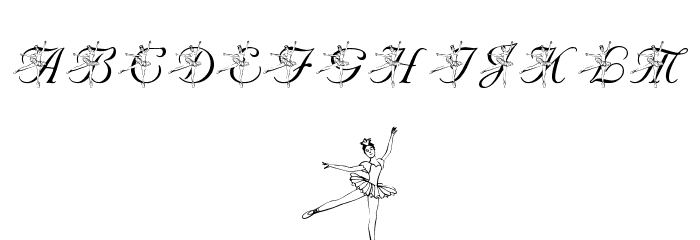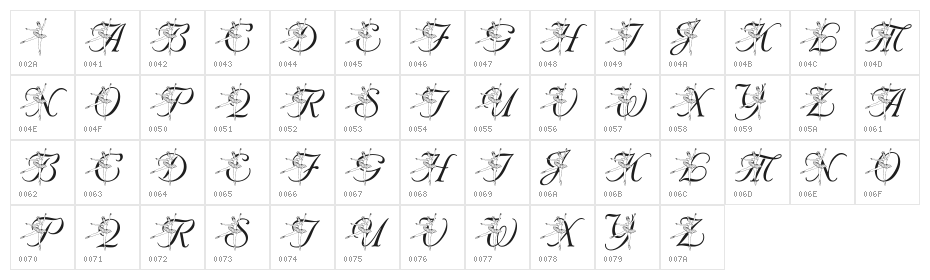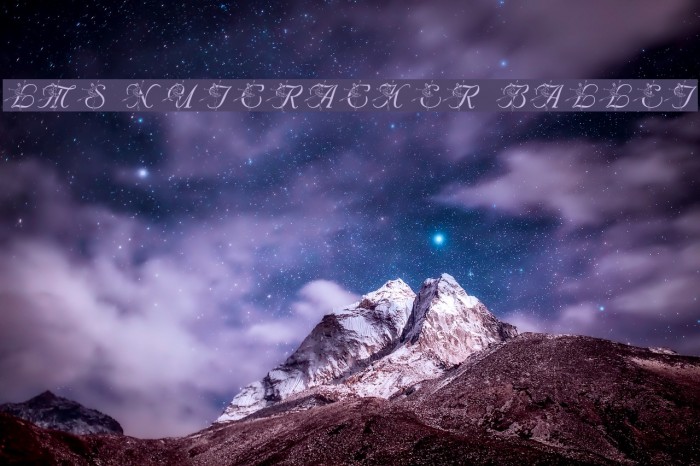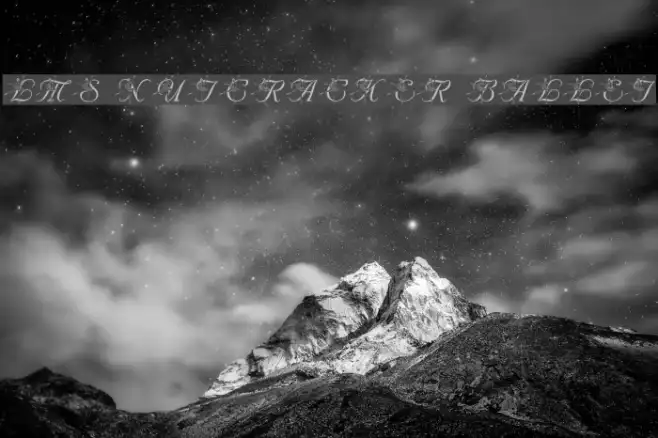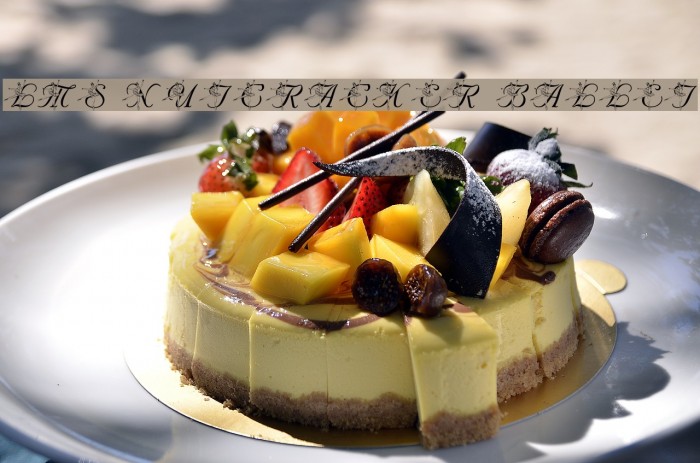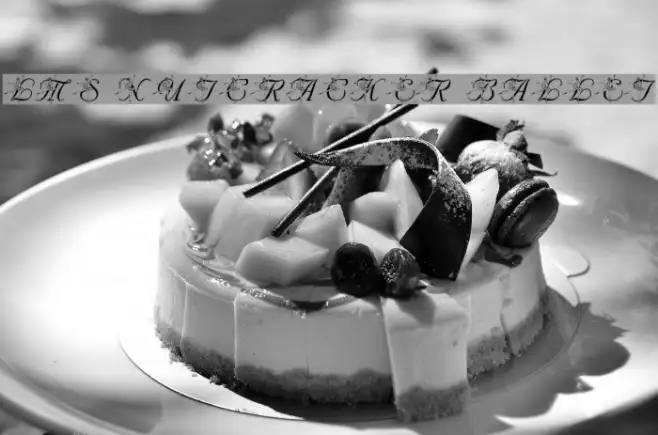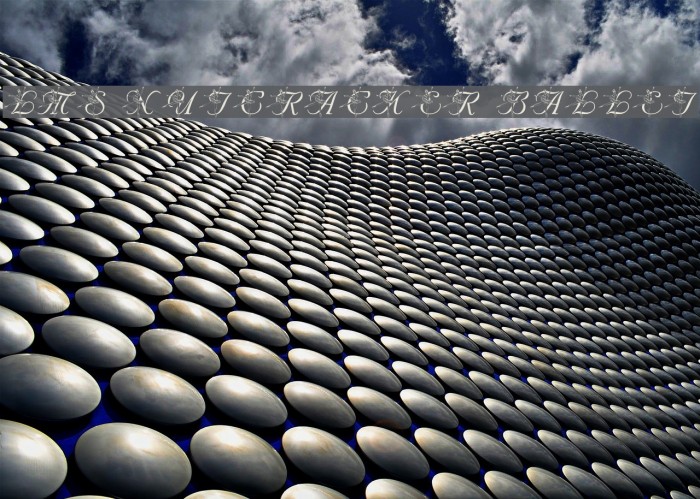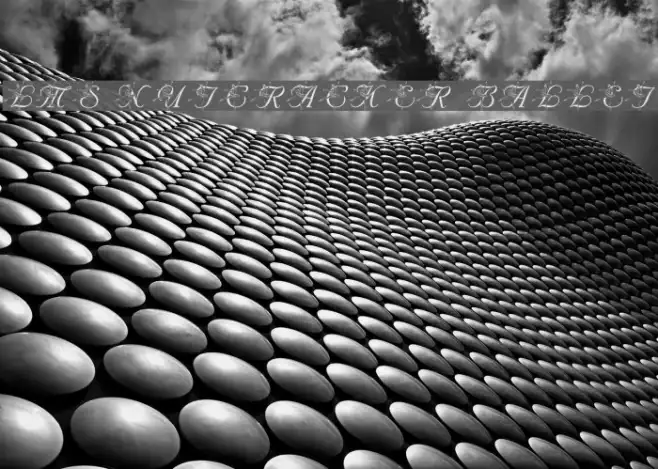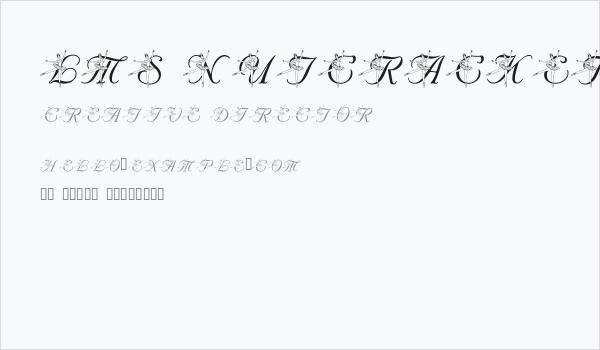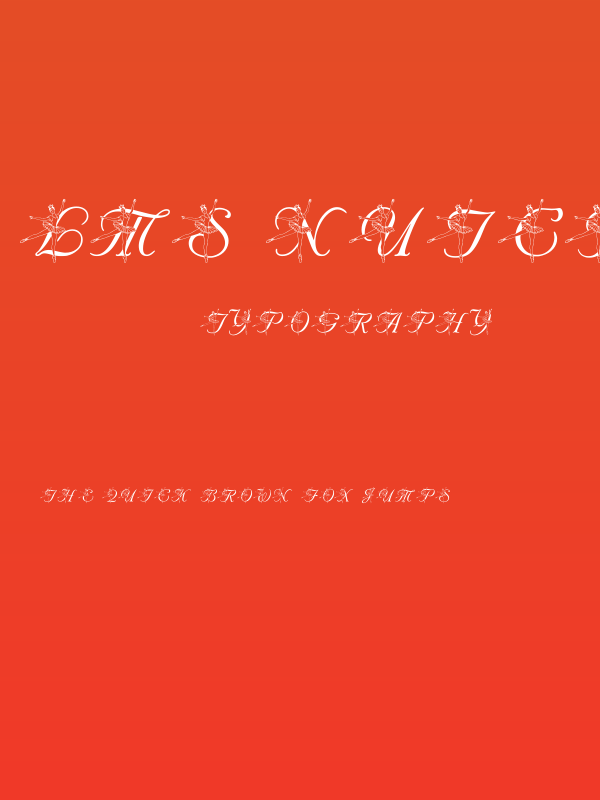
LMS Nutcracker Ballet Font
LMS Nutcracker Ballet Description
This decorative font features an elegant and whimsical design, incorporating ballet-themed elements into each character. The letters are adorned with intricate flourishes and motifs reminiscent of ballet dancers, creating a sense of movement and grace. The font is highly stylized, with each character presenting unique embellishments that evoke the art and beauty of ballet. The overall appearance is both artistic and sophisticated, making it ideal for creative and themed projects.
| Proposed Projects | Ideal for dance recital invitations, ballet-themed event posters, artistic logos, and decorative headings. |